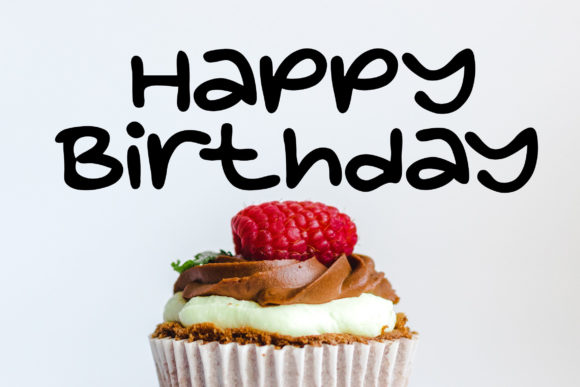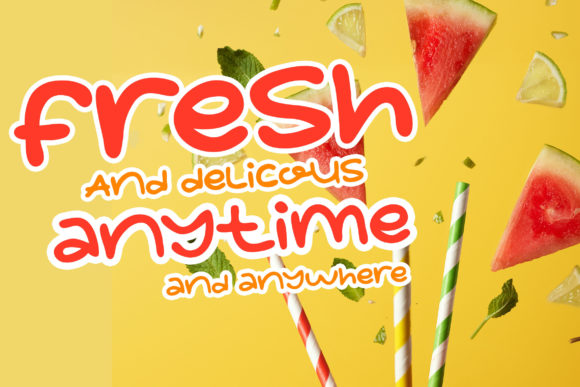
Watermelon is Delicious Font
db-ku.com - Script & Handwritten -- Watermelon is Delicious is a cute, friendly and round lettered handwritten font. Its natural and unique style makes it incredibly fitting to a large pool of designs. The only limit is your imagination!